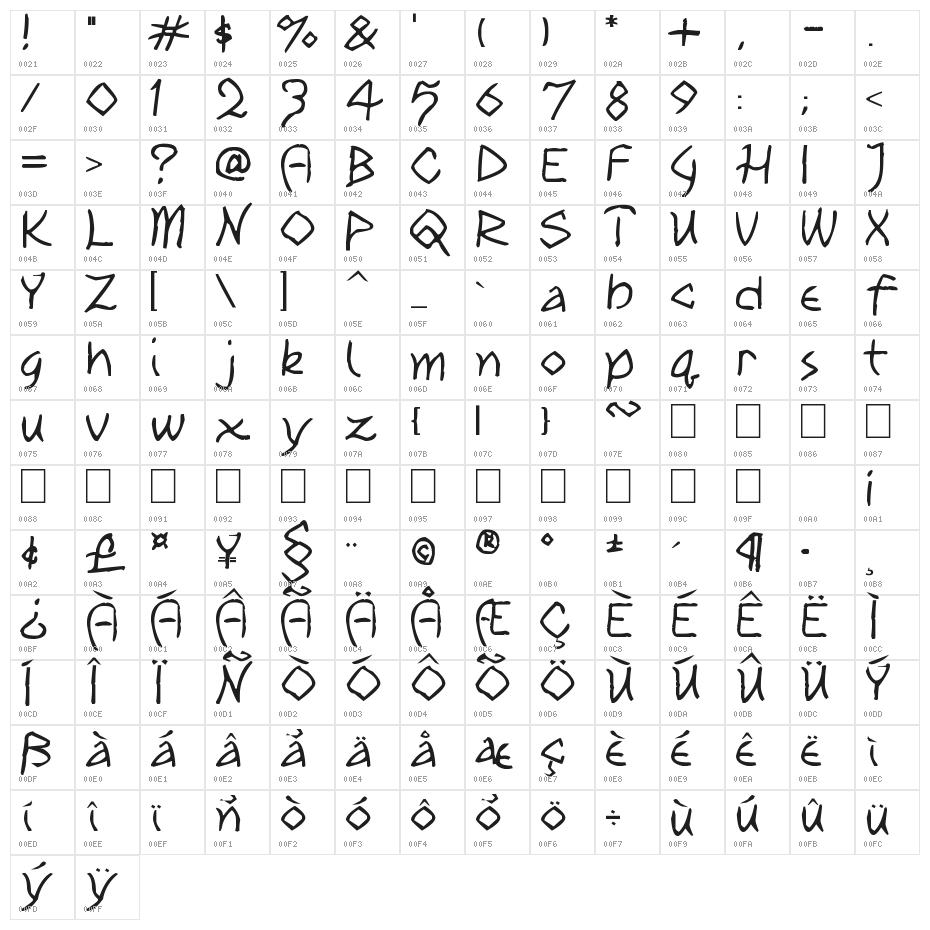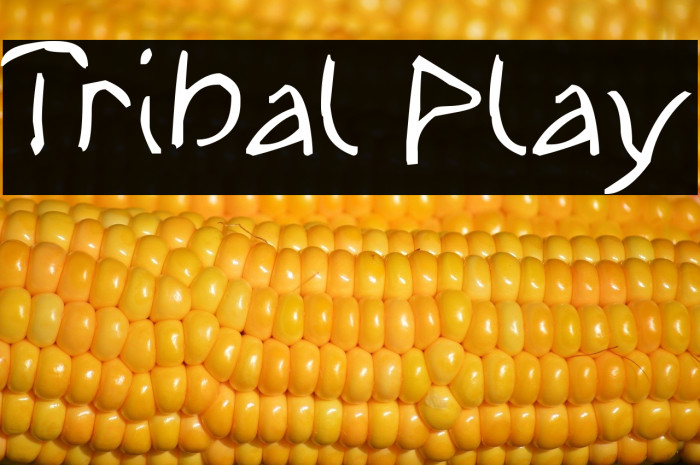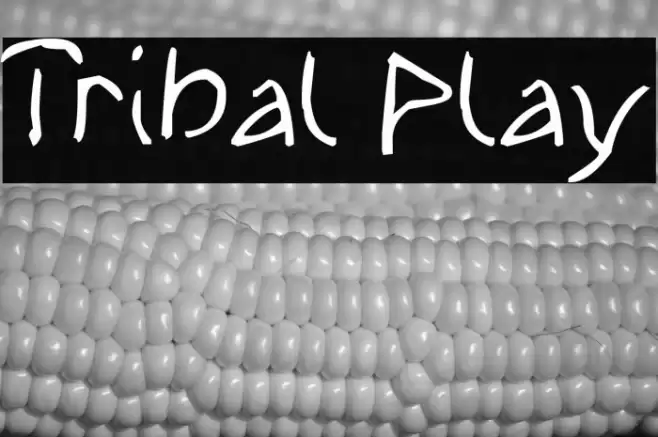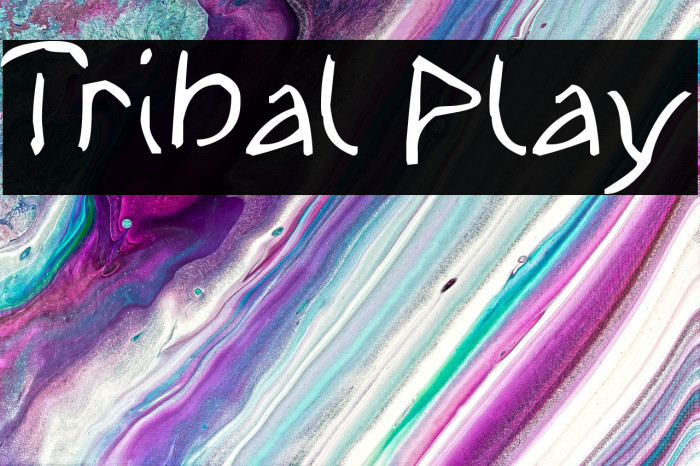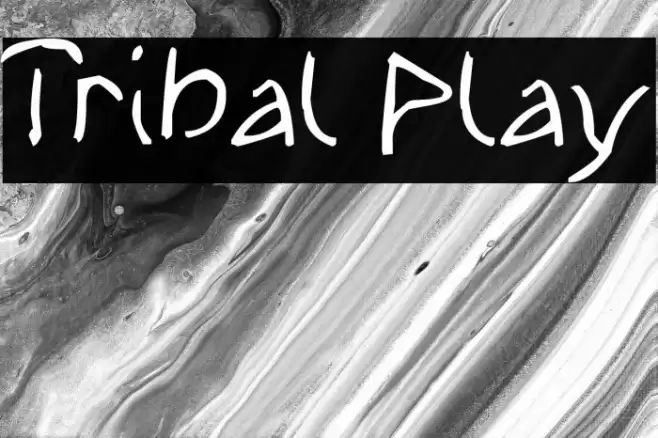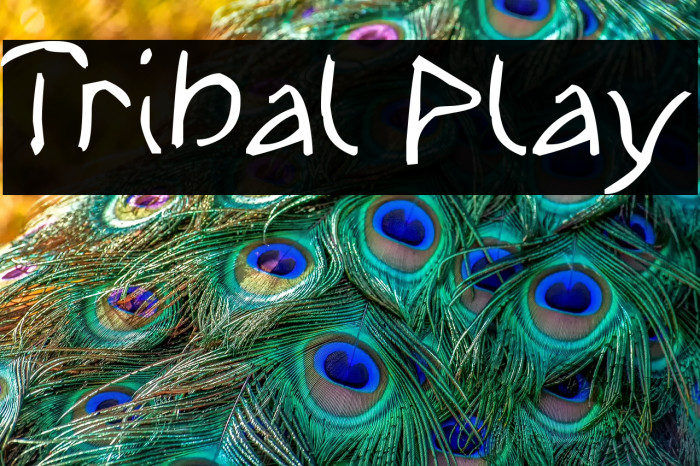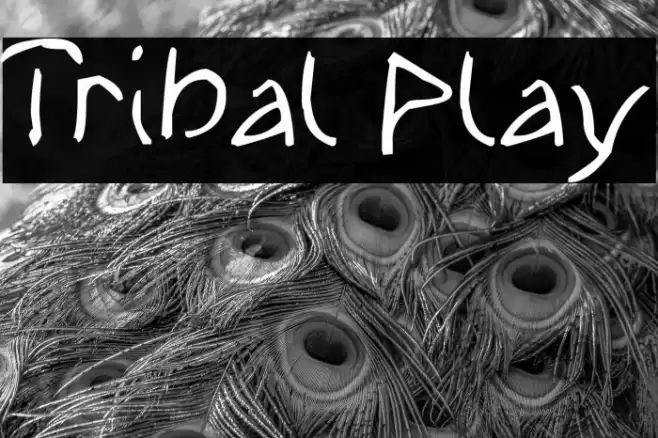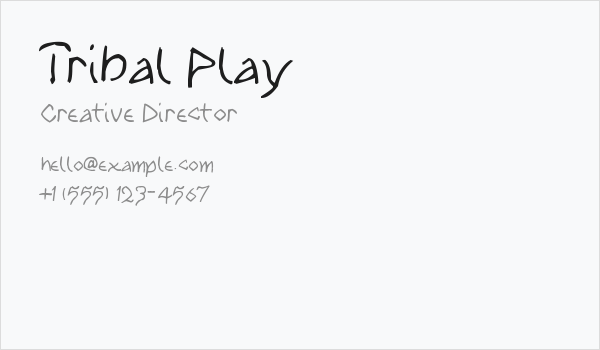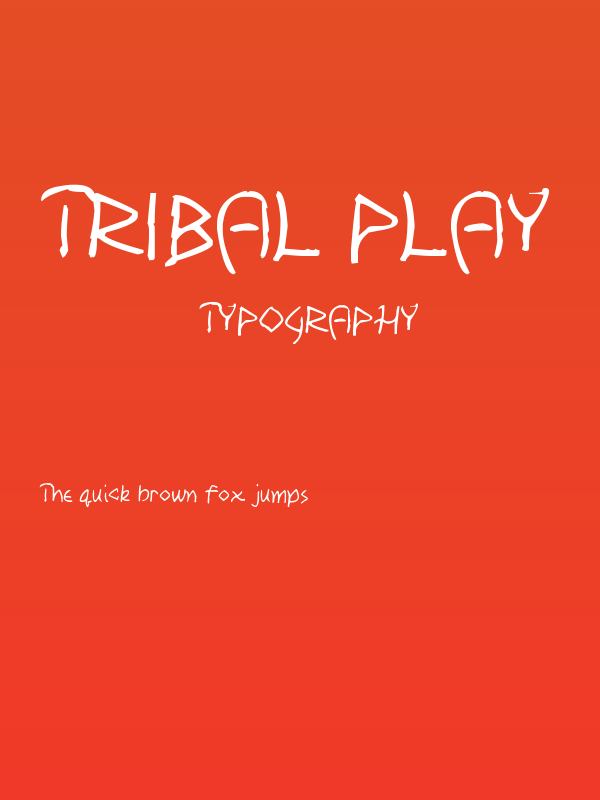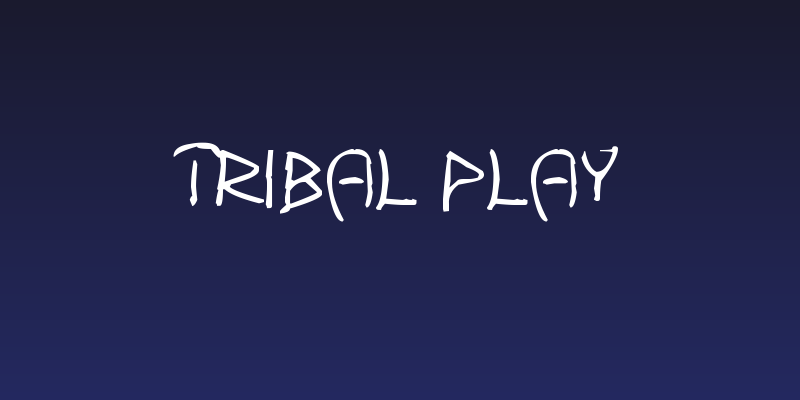
Tribal Play Font
Tribal Play Description
This font features a unique and playful design with a tribal-inspired aesthetic. The characters are crafted with irregular strokes, giving them a hand-drawn appearance. The uppercase and lowercase letters maintain a consistent style, with slightly exaggerated curves and angles that add to the font's dynamic look. The numbers and special characters follow the same design principles, ensuring a cohesive appearance across all elements. This font's distinctive style makes it ideal for projects that require a touch of creativity and individuality.
| Proposed Projects | Ideal for creative projects such as posters, album covers, and branding materials that seek a unique and artistic flair. |